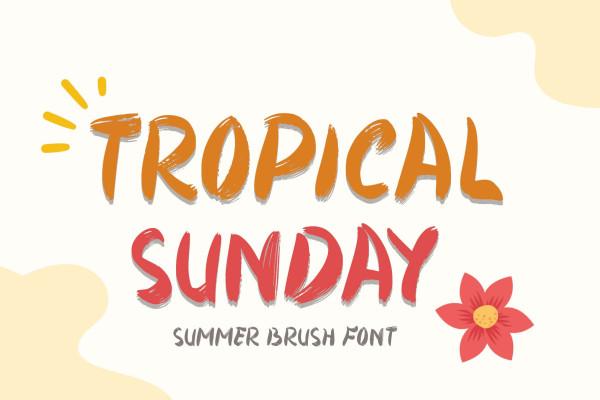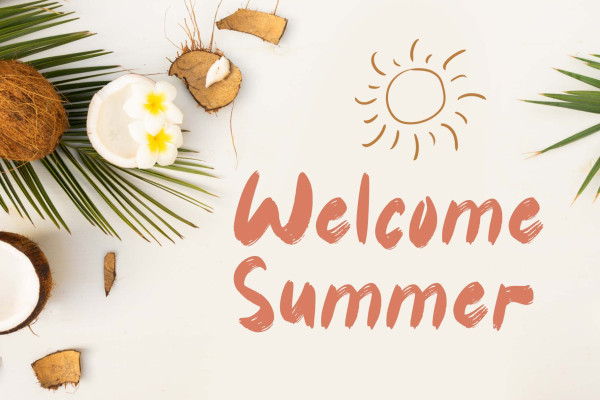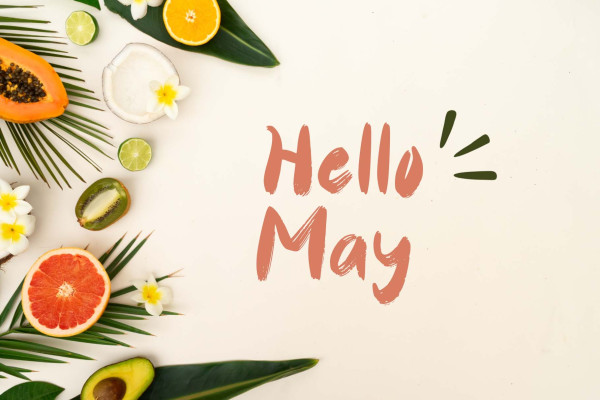
Tropical Sunday Font
Tropical Sunday Font is a brush font that is perfect for summer moments. This font is very simple because it has been specially designed. Equipped with uppercase, lowercase, numerals, punctuation, and multilingual support. Can be used for holiday moments, vacations, social media, stickers, posters, and more.